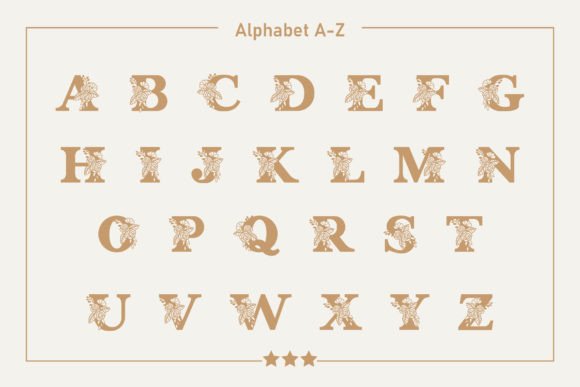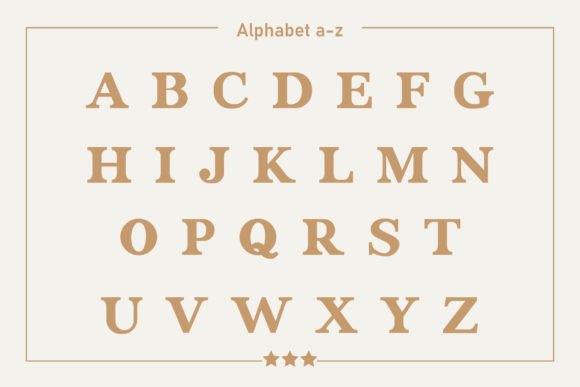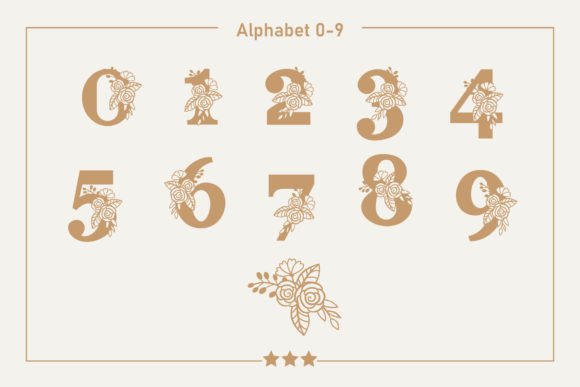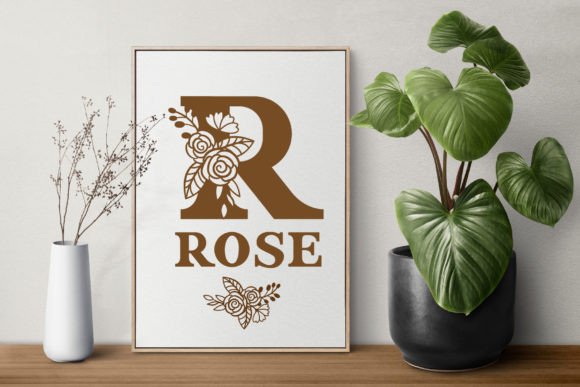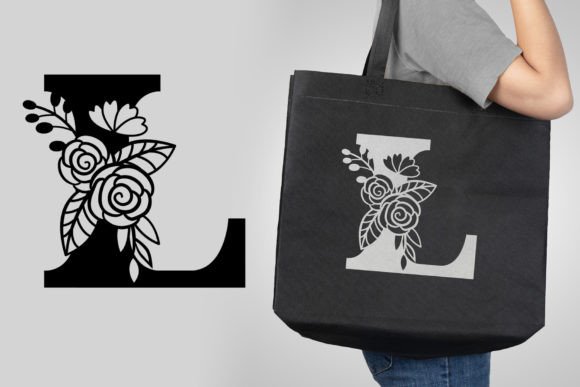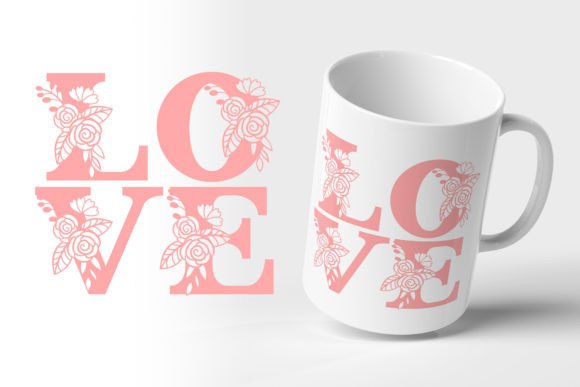
Introduction to Iris Monogram Font
Iris Monogram is a delicate and highly detailed decorative font.
Fall in love with its authentic feel and use it to create gorgeous invitations, beautiful stationary art, eye-catching social media posts, and cute greeting cards Add this beautiful font to each of your creative ideas and notice how it makes them stand out.
Key Features of Iris Monogram Font